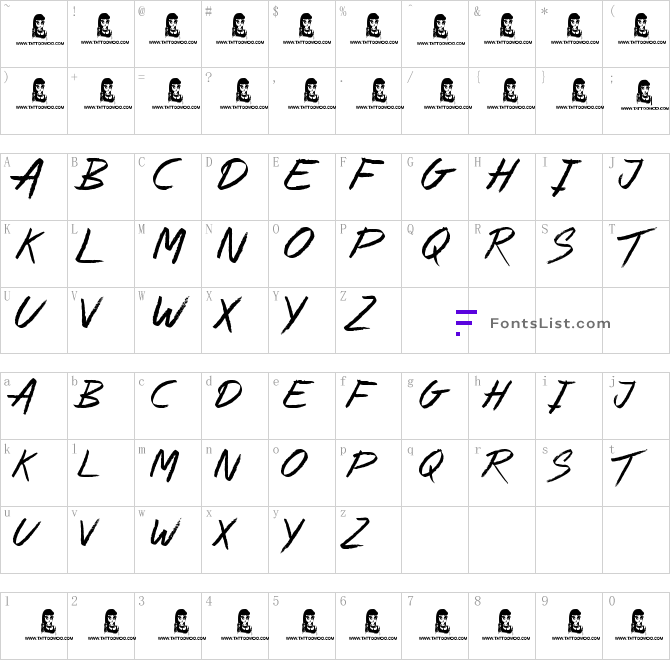
- Font Name:Alley Cat
Alley-Cat.ttf is a very beautiful artistic font, Alley-Cat.ttf is widely used in the design and printing of various books and pictures,Alley-Cat.ttf has a strong visual impact,Alley-Cat.ttf is a commonly used font in newspapers, magazines and books, and is used in posters, e-commerce Poster design, store design, logo design, font design and other fields.Alley-Cat.